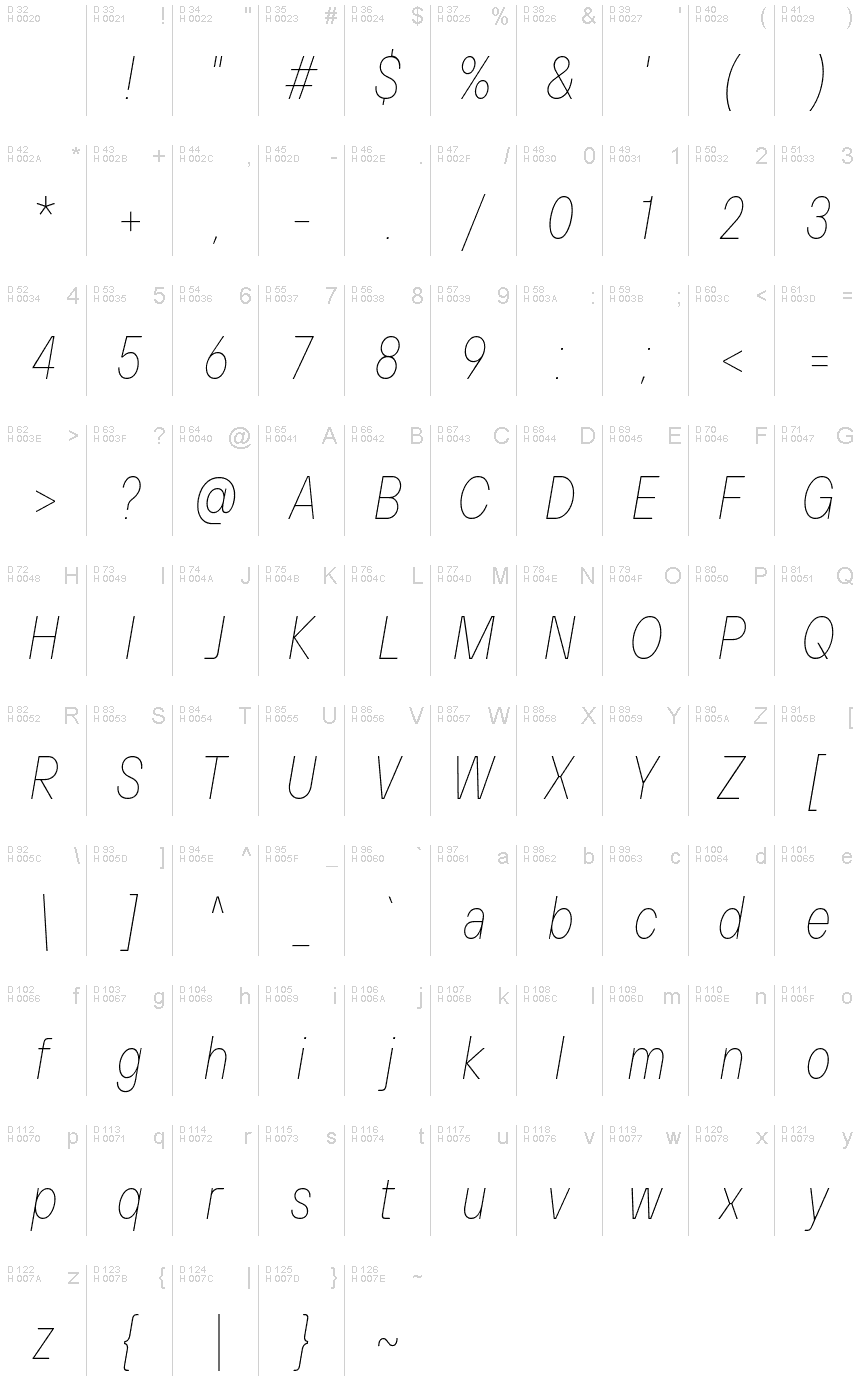
TT Hoves Pro Trl Cnd Hairline Italic
TT Hoves Pro Cnd Hairline Italic is a captivating sans serif font from the renowned TypeType Foundry.
Its condensed width adds an elegant touch, making it perfect for modern branding and sleek editorial projects. With its delicate hairline weight and italic style, this font exudes sophistication and refinement. Ideal for high-end fashion magazines, luxury product packaging, or minimalist website designs, TT Hoves Pro Cnd Hairline Italic will elevate any project with its graceful charm.